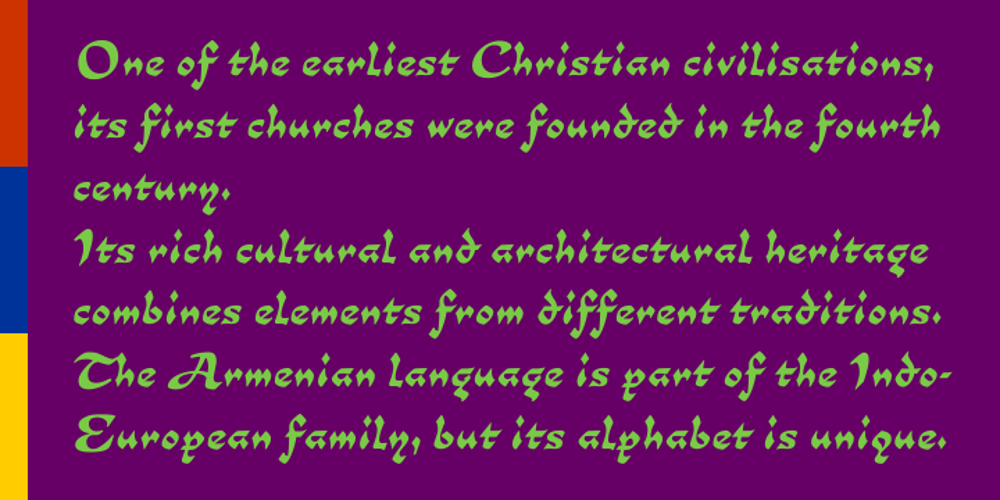
Simeon 2D Font Family was designed by Viktor Kharyk and published by 2D Typo. Simeon 2D contains 1 styles and family package options. The font Simeon is based on a historic Armenian handwriting notrgir that was made popular in 1756-1757’s by Johann Michael Fleischman who used it for Johann Enschede’s typefoundry and Armenian handwritten capital letters from other European sources edited by a modern Armenian designer. It also contains style and time appropriate Bastardo-Latin and a stylized Cyrillic, complete with full set of Armenian characters and ligatures, required Latin ligatures.